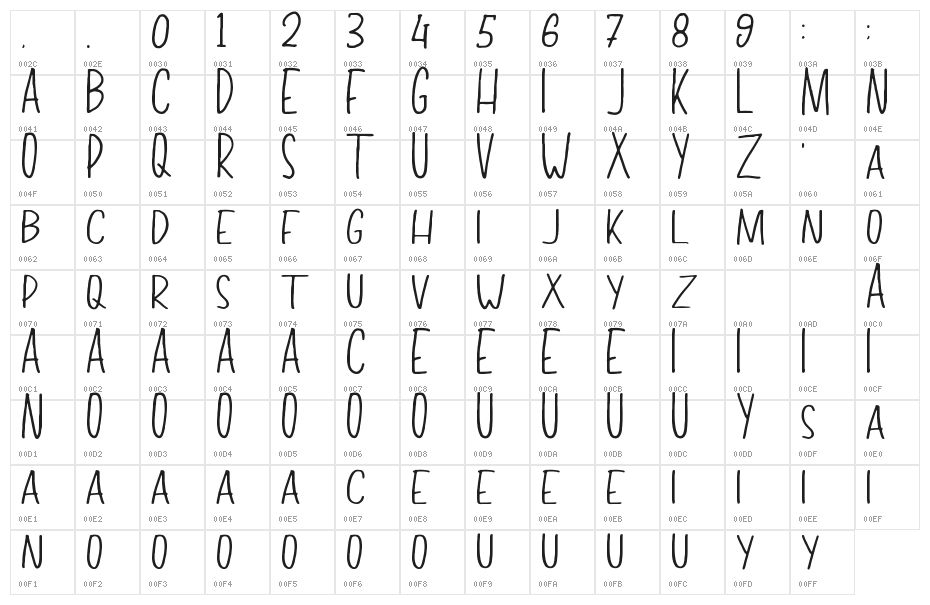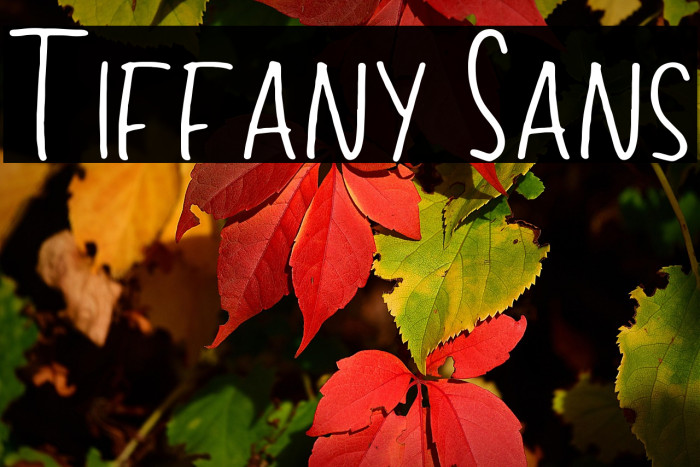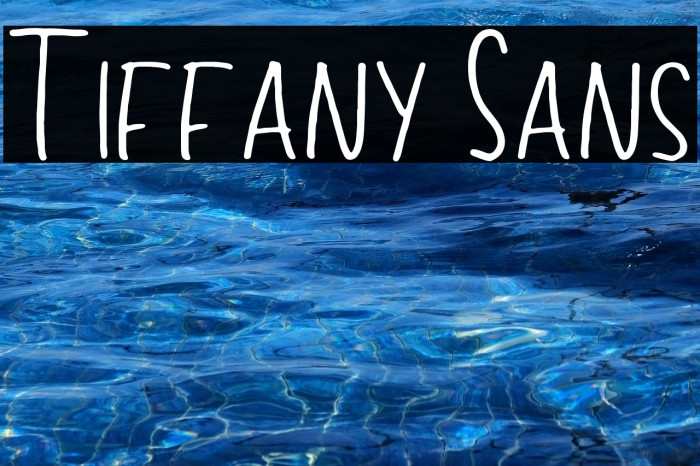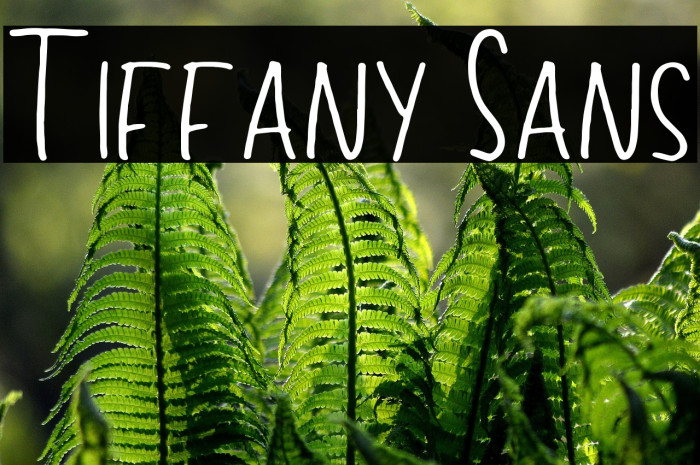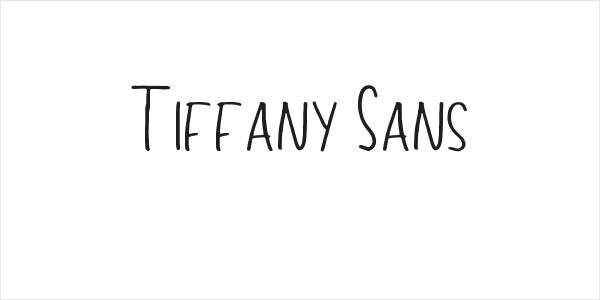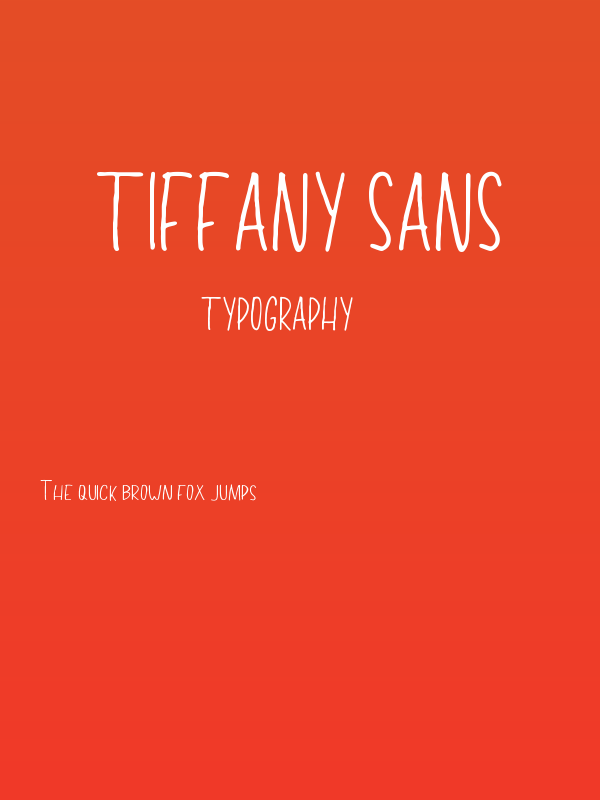
Tiffany Sans Font
Tiffany Sans Description
This font features a playful and informal handwritten style, characterized by its tall, narrow letters with a slight slant. The strokes are consistent in width, giving it a clean and uniform appearance. The uppercase and lowercase letters maintain a cohesive look, with rounded edges that add a friendly and approachable feel. The numerals are similarly styled, ensuring readability and consistency across different uses. This font is versatile, suitable for a variety of creative projects where a casual and personal touch is desired.
| Proposed Projects | Ideal for greeting cards, invitations, personal branding, and creative projects that require a casual, friendly tone. |